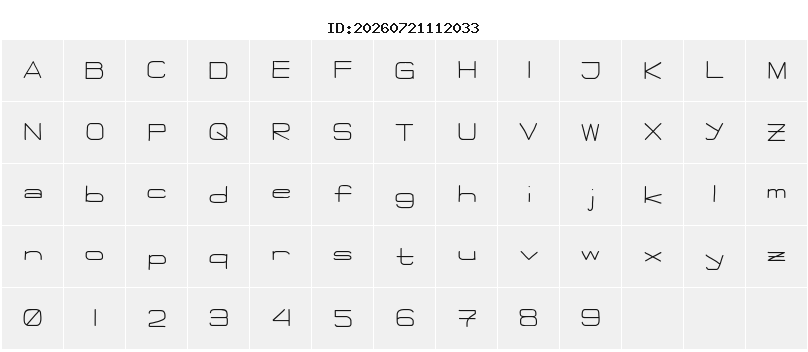
• Font Name: Flattie Medium
• Designer: Jacquelyn Soh
About Flattie Medium.ttf
Flattie Medium.ttf is a modern, elegant sans-serif font designed for ultimate readability and visual harmony. Perfect for branding, headlines, web design, and print materials.